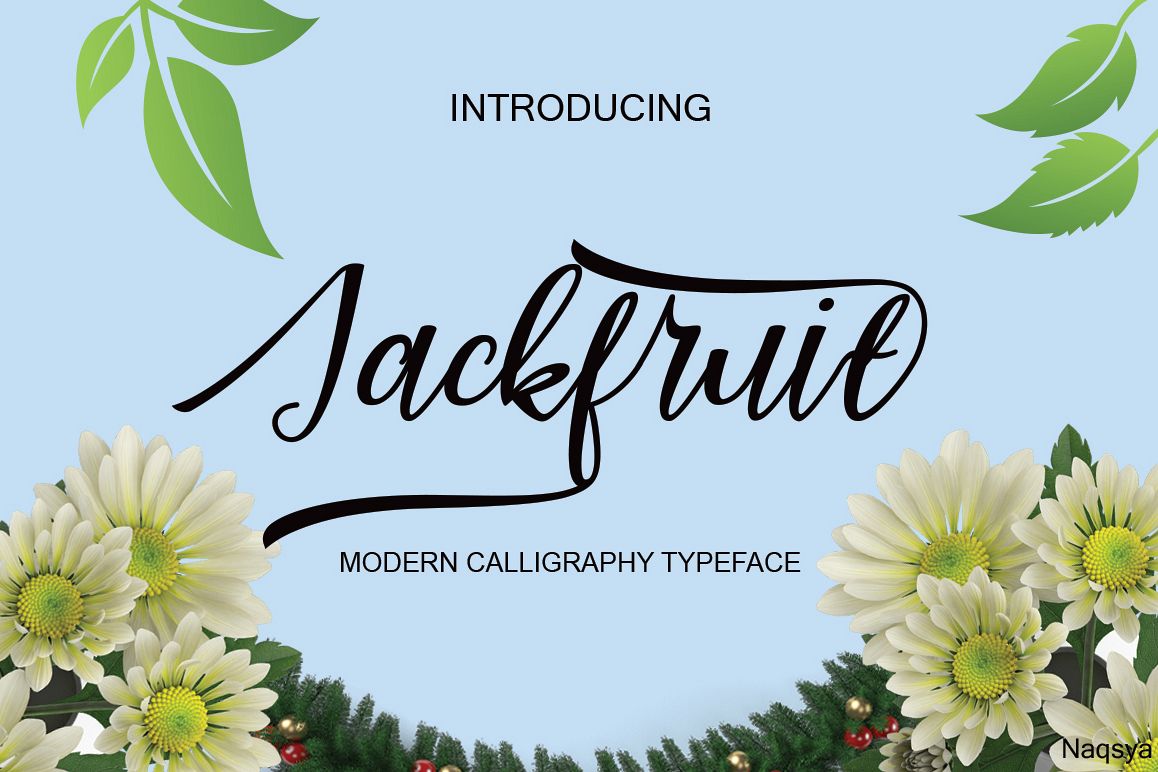
Jackfruit
Jackfuit
Jackfruit Modern Calligraphy. This font was designed by handwriting, and it has a modern and unique forms of calligraphy, the writing style is very natural.The Features of this fonts is;
• Contextual Alternates
• Stylistic sets
• swash